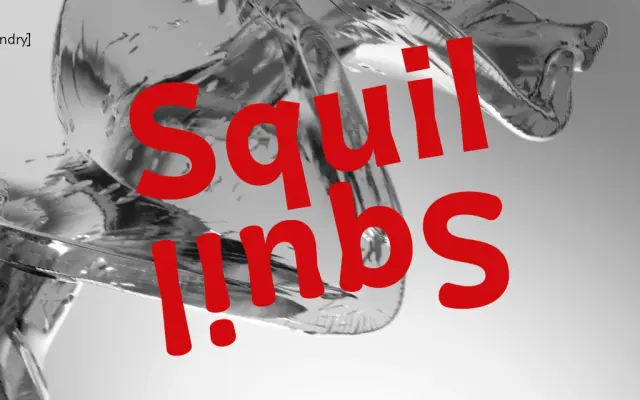
Squil
A humanist sans with pinched stems and a calligraphic axis, available in crisp and rounded styles across five weights with a variable font included.
Squil draws on the qualities of an imaginary handwriting tool to produce a humanist sans with pinched stems, softly angled stress and gently curved terminals. The family splits into a standard and a rounded subfamily, each running from Light to Extra Bold, with a variable font offering continuous control over terminal style from straight to rounded. It handles both headline and body text confidently without the stiffness typical of geometric or grotesque designs.
Squil is a humanist sans-serif shaped by an imaginary handwriting tool, with pinched stems, a slightly angled stress axis and soft curves that reference calligraphic origins. The rounded subfamily further reinforces its warm, organic character.